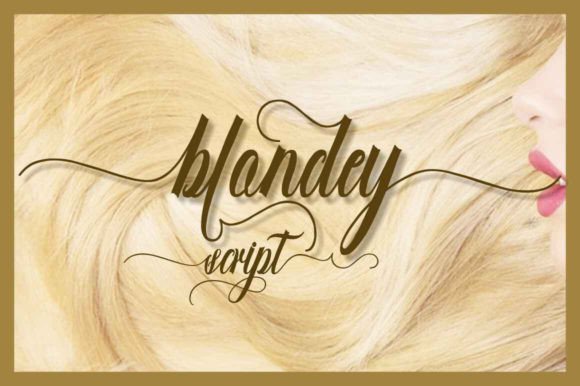
The Perfect Script: Unleashing Your Creativity with Blondey Script Font
Have you ever sat at your desk, staring at a blank page, desperately searching for the perfect font to bring your design to life? You’re not alone. As creatives, we’ve all been there, struggling to find the perfect script to convey our message and capture the essence of our brand. But what if I told you that there’s a font that can make all your design dreams come true?
Enter the Blondey Script Font, a stunning model of original handwritten simplicity that’s sure to take your designs to the next level. With its updated hand calligraphy model and special glyphs that combine fantasy and handwritten ink, this font is a game-changer for designers looking to add a touch of elegance and sophistication to their work.
Whether you’re designing wedding invitations, branding materials, or business cards, the Blondey Script Font is the perfect tool to help you create stunning visuals that leave a lasting impression. Its versatility and beauty make it an essential addition to any designer’s toolkit.
Blondey Script Font Key Features
- Font Family: Blondey Script
- Unique Characteristics: Blondey Script features a beautiful, cursive script design with subtle flair and elegance, making it perfect for creative and design-oriented applications
Designer Review: Blondey Script Font
I recently had the chance to work with the Blondey Script Font, and I must say, it’s a unique and interesting addition to any design project. ✨ One of the things that stands out is its elegant and refined feel, making it perfect for high-end branding and luxury products. The font’s fluid, handwritten style adds a touch of sophistication and can elevate any text to a whole new level.
Another aspect I appreciate about Blondey Script is its versatility. It can be used in a variety of settings, from formal invitations to modern marketing materials. ✨ The font’s adaptability is a major plus, as it can seamlessly transition between different contexts and still maintain its charm.
While Blondey Script Font has many strengths, there are a few limitations worth noting. ⚠️ Firstly, the font may be too ornate for some projects, and its complexity can make it difficult to read at smaller font sizes. Additionally, the font’s fluid nature can make it challenging to achieve perfect alignment and consistency.
Overall, I think the Blondey Script Font is a great addition to any designer’s toolkit. While it may have some limitations, its unique style and versatility make it a valuable asset for designers looking to add a touch of elegance and sophistication to their projects.
Design Considerations
- Use Blondey Script Font for high-end branding and luxury products
- Pair the font with simpler fonts to avoid overwhelming the design
- Be cautious when using the font at smaller sizes to maintain readability
Blondey Script Font: A Practical Application Guide
Tips for Getting the Most Out of Blondey Script Font
Use Blondey Script Font for headings, titles, and short text blocks to add a touch of elegance and sophistication.
Pair Blondey Script Font with clean sans-serif fonts for a modern and stylish look.
Experiment with different font sizes and colors to create visual hierarchy and emphasis.
Blondey Script Font is ideal for:
Branding and marketing materials
Artistic and creative projects
Personalized gifts and stationery
Alternatives to Blondey Script Font
Great Vibes is a beautiful, elegant script font ideal for invitations, wedding designs, and other formal events. It features a classic, handwritten feel with subtle flair and flow. Great Vibes is similar to Blondey Script Font in its flowing, cursive design but has a more refined, sophisticated look.